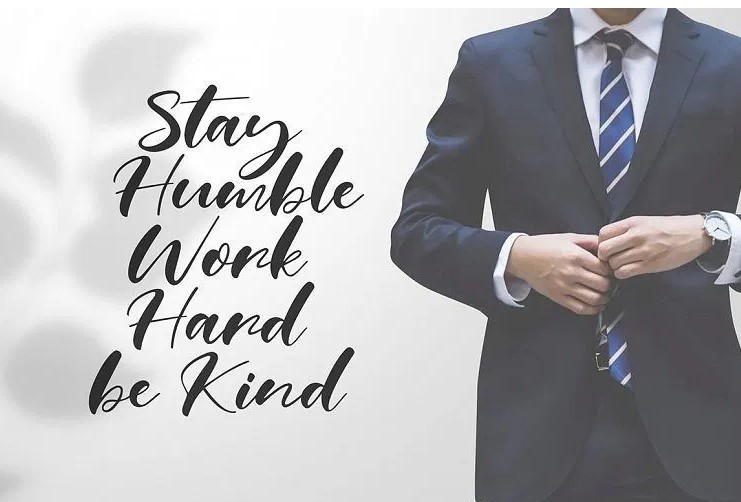
Real Miami Calligraphy Font
Real Miami Calligraphy Font is famous for its script typeface. This font falls into the category of Retro Fonts and it is for free.
And he releases it thru range foundry for the primary time. This high-quality font has come as a threat in normal splendor but this elegant fashion has held like moldr thai font.
Style Of Real Miami Calligraphy Font Free